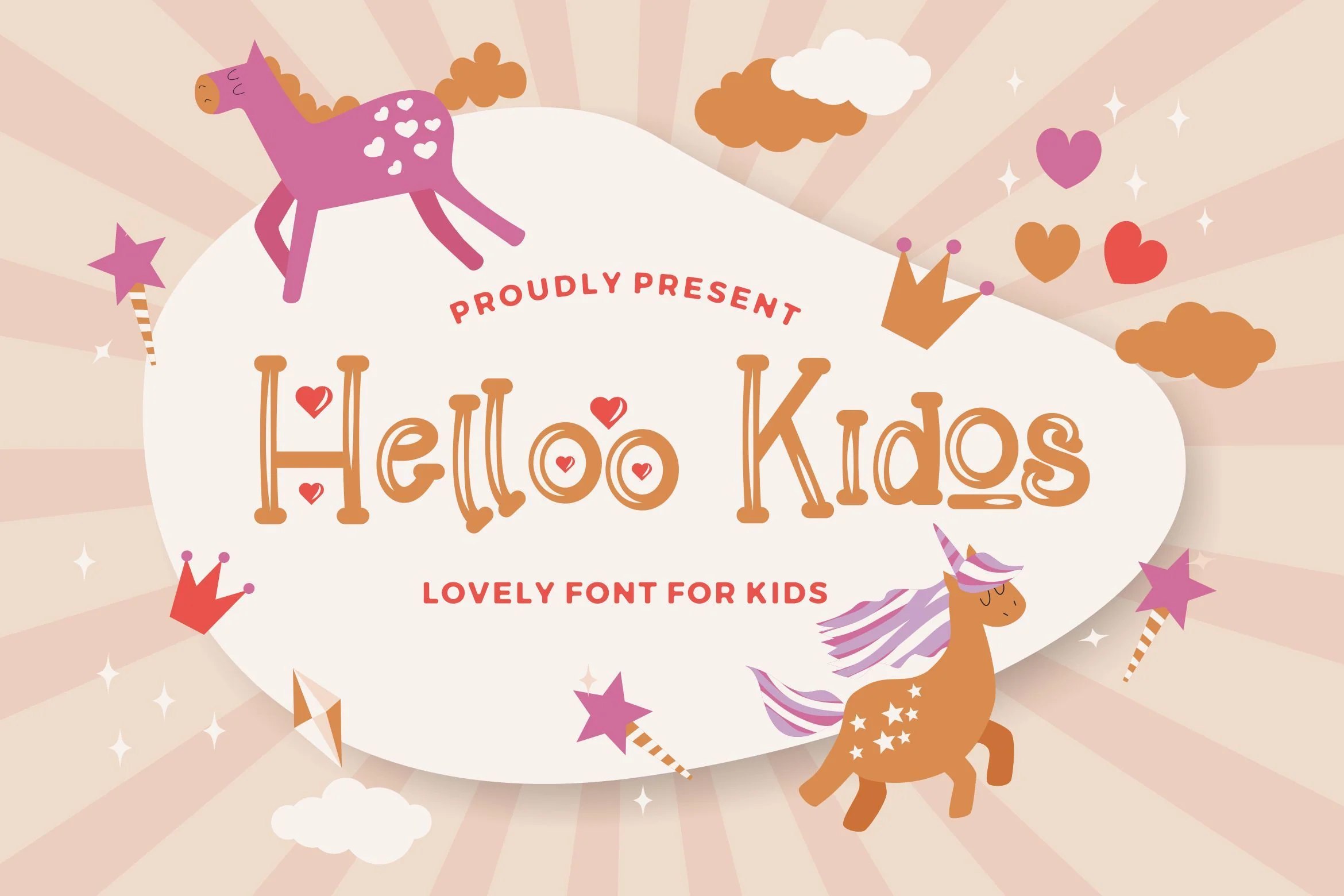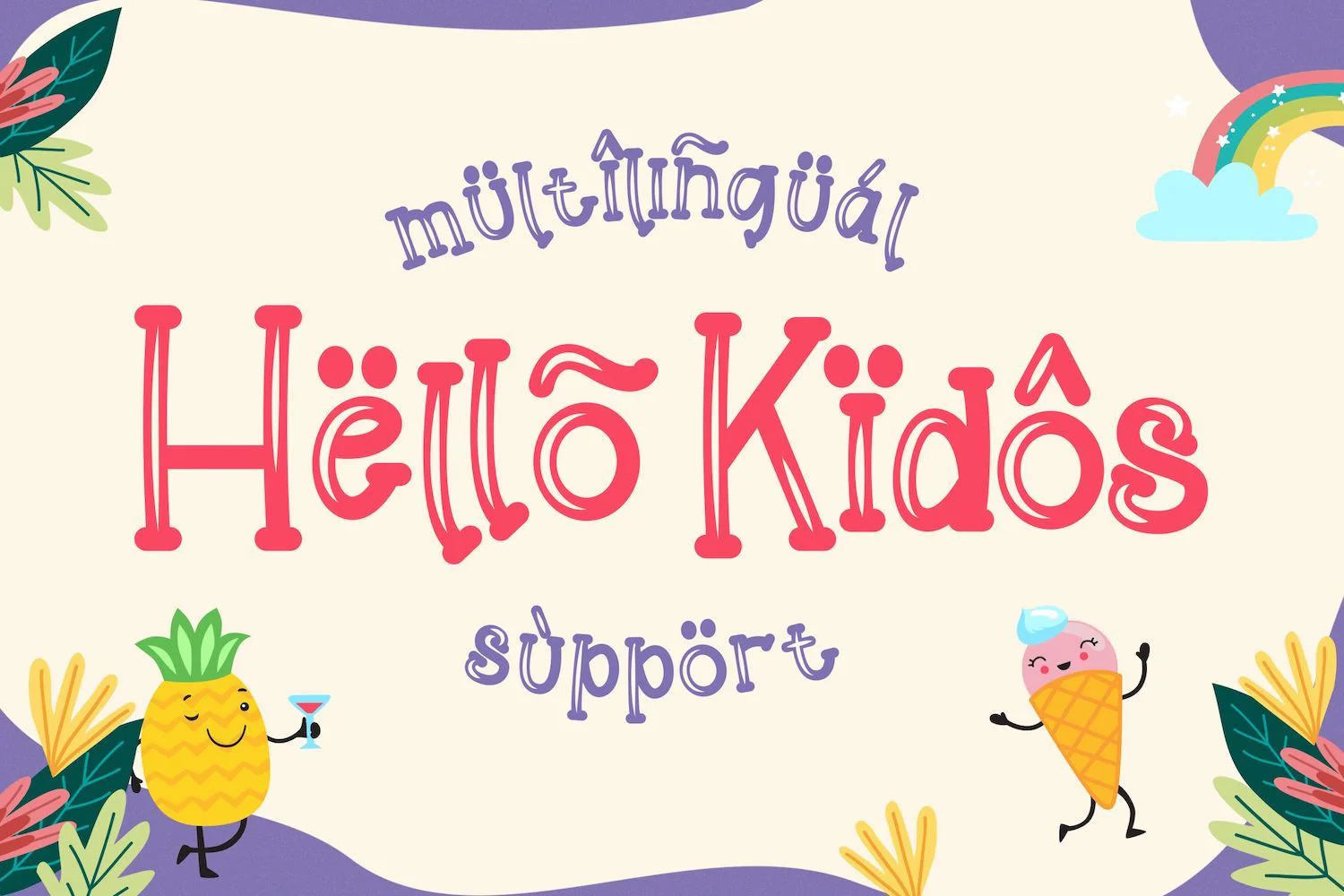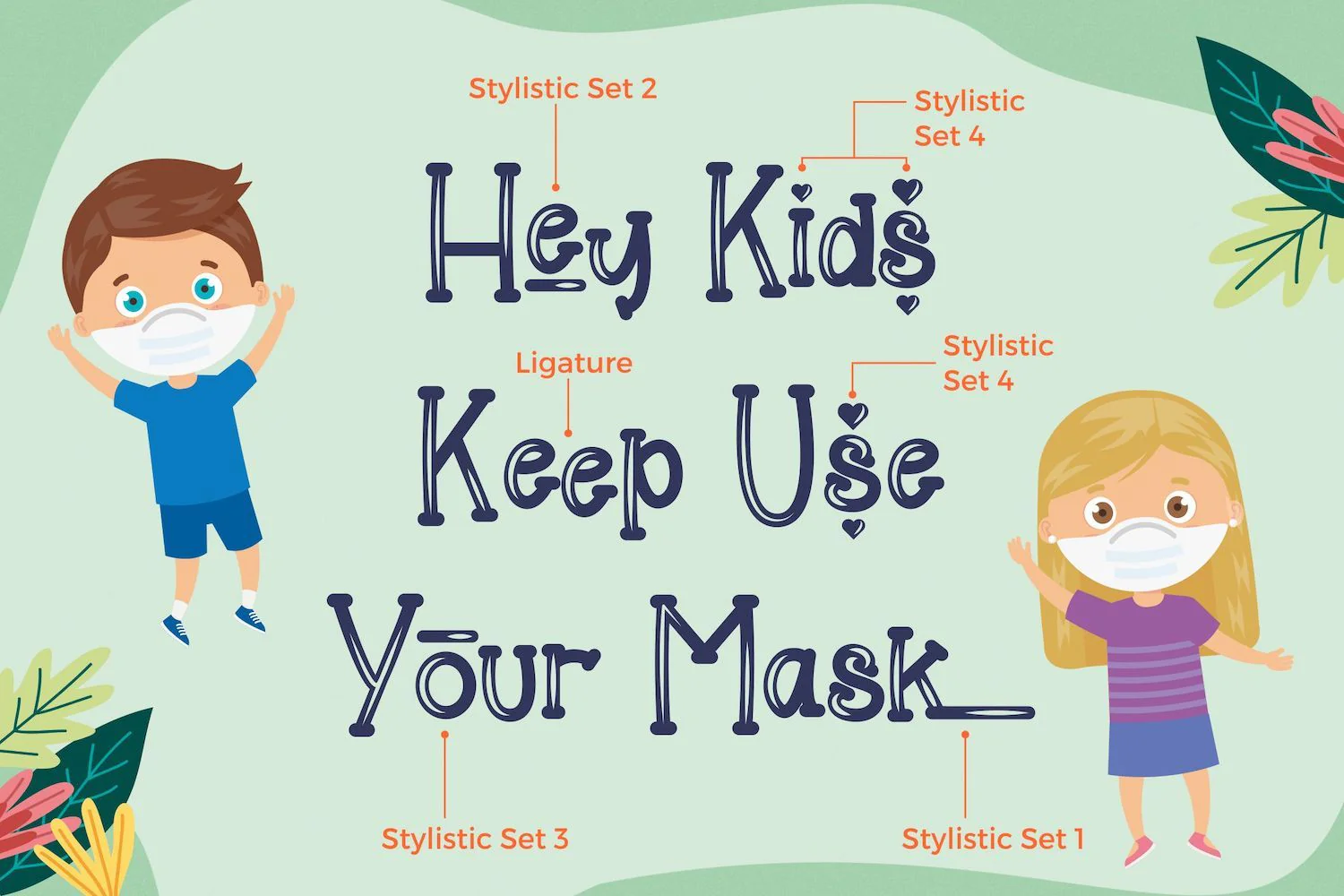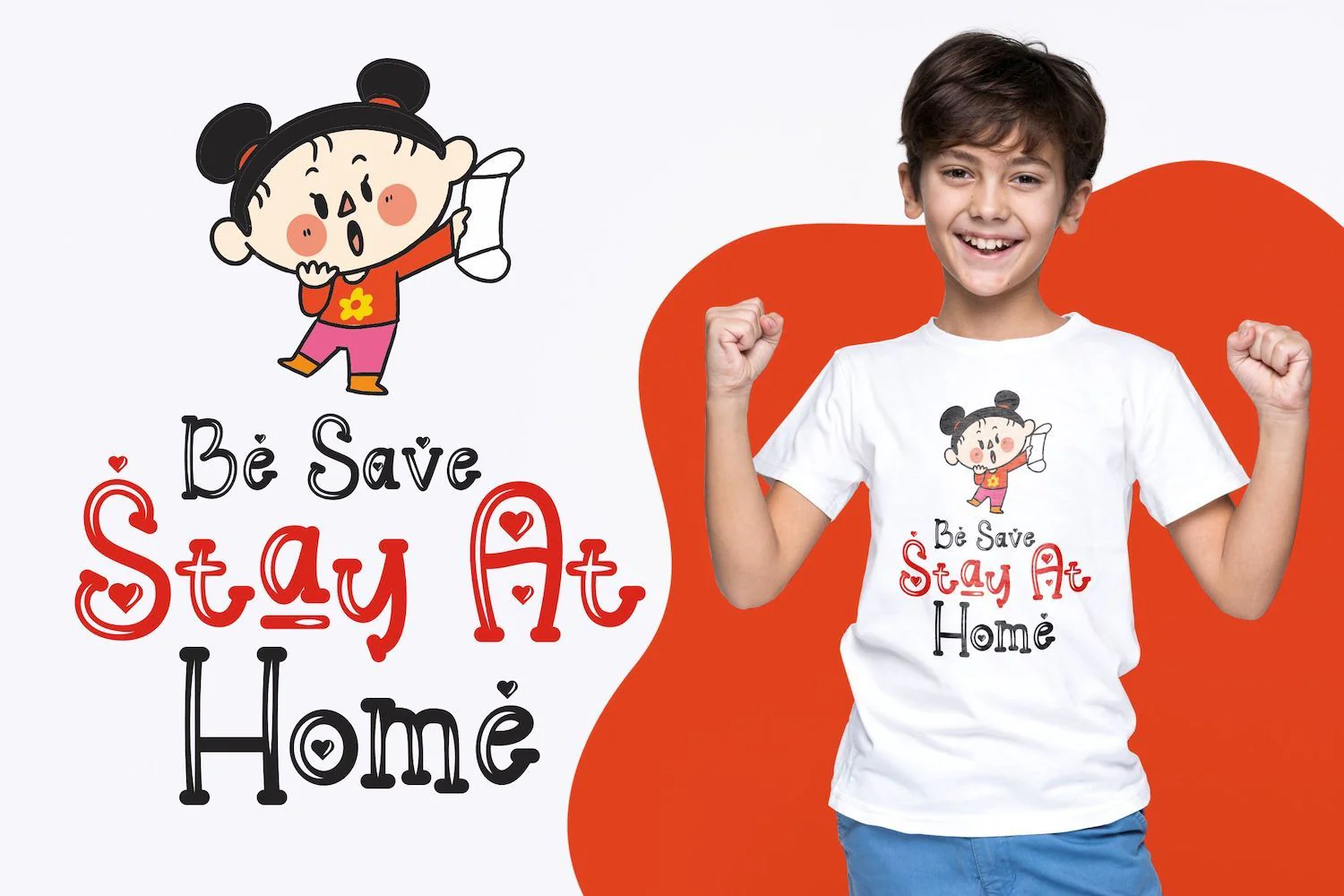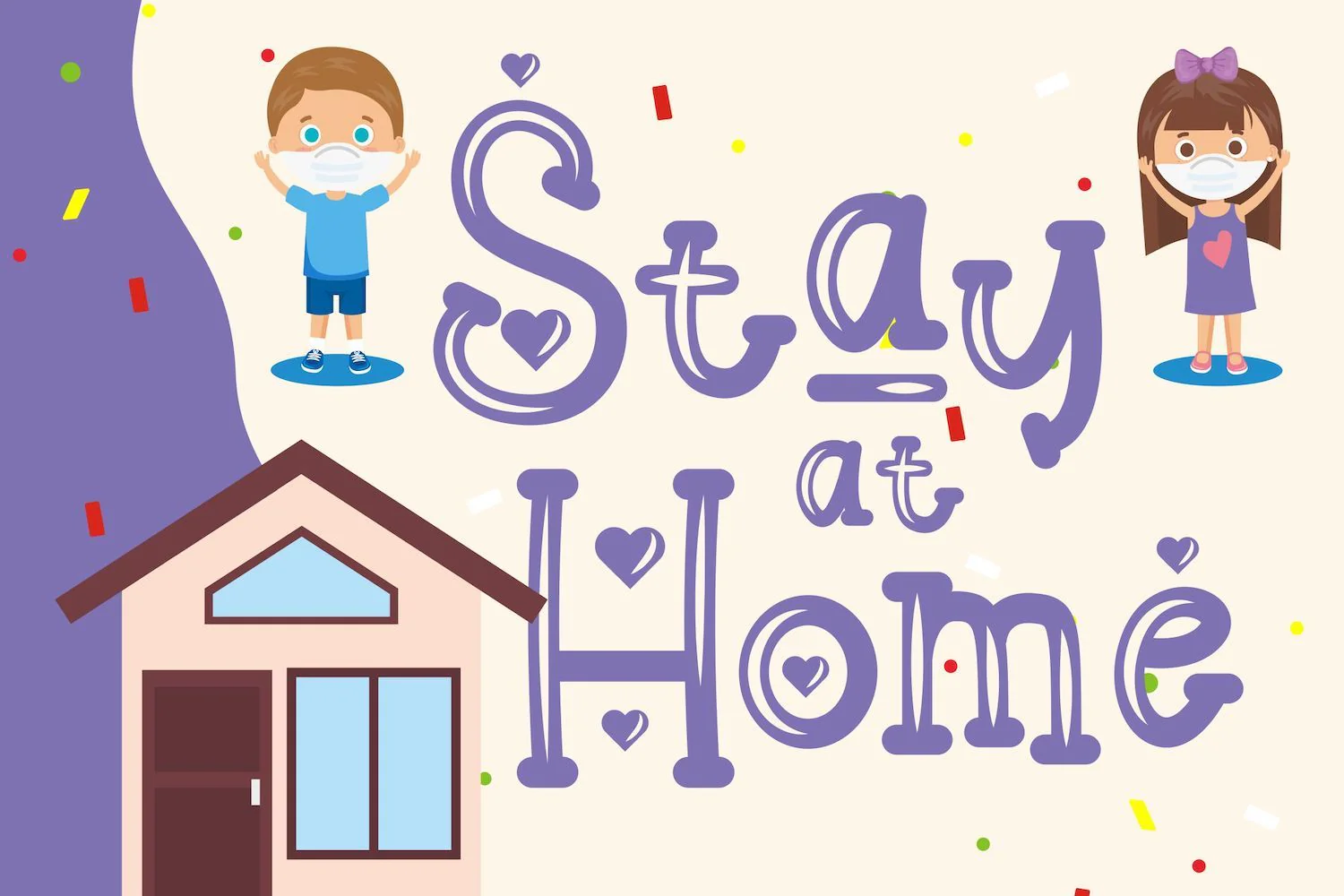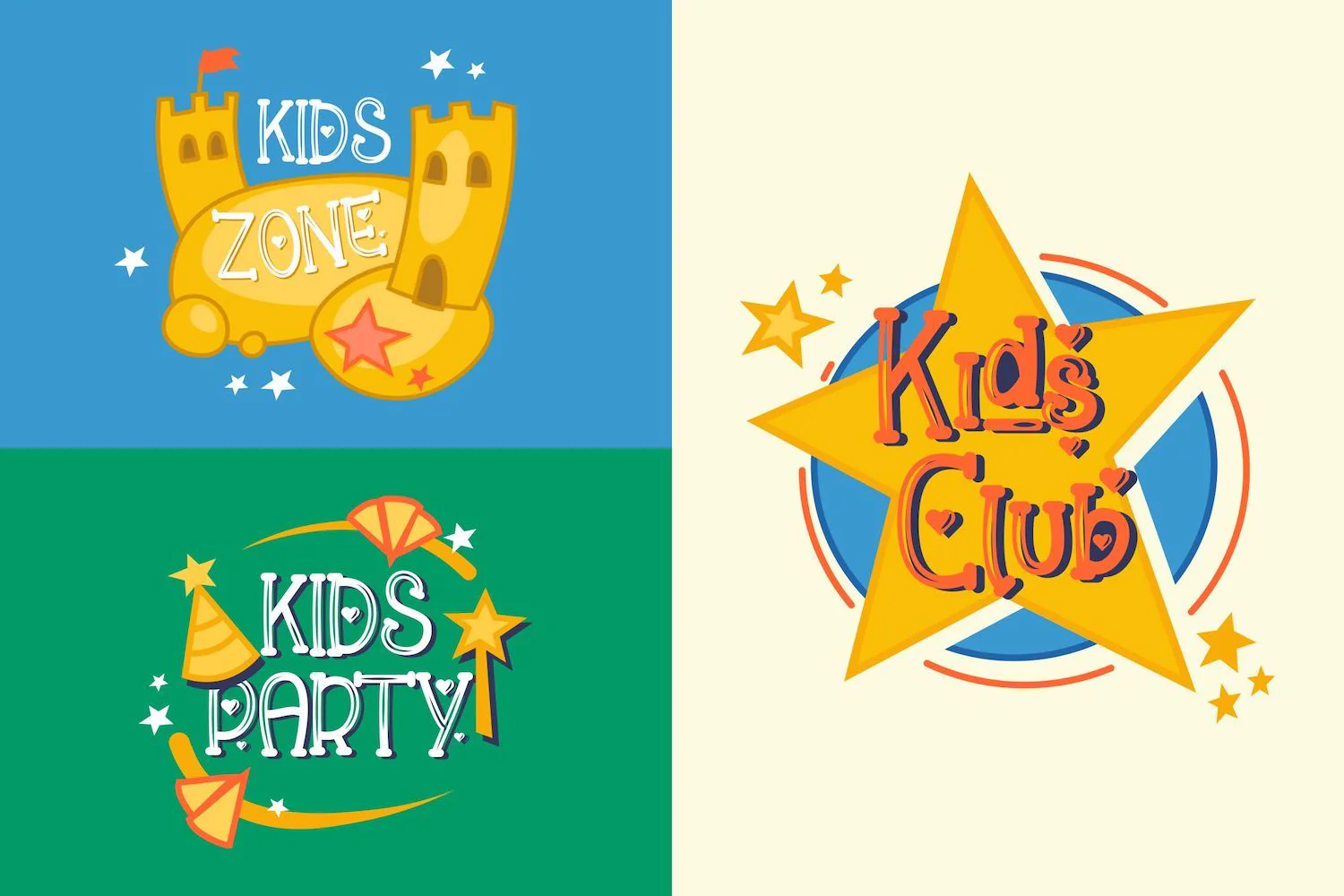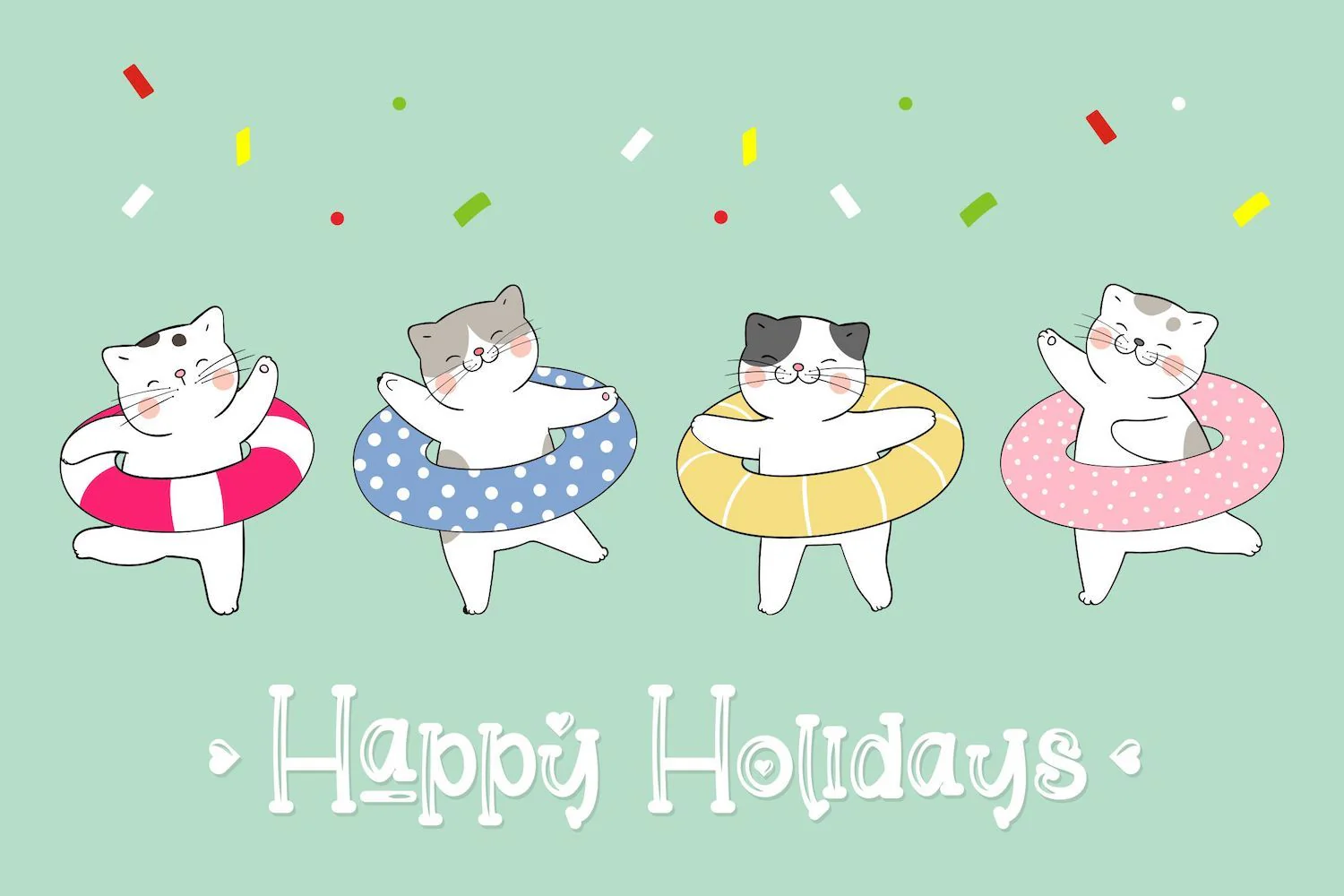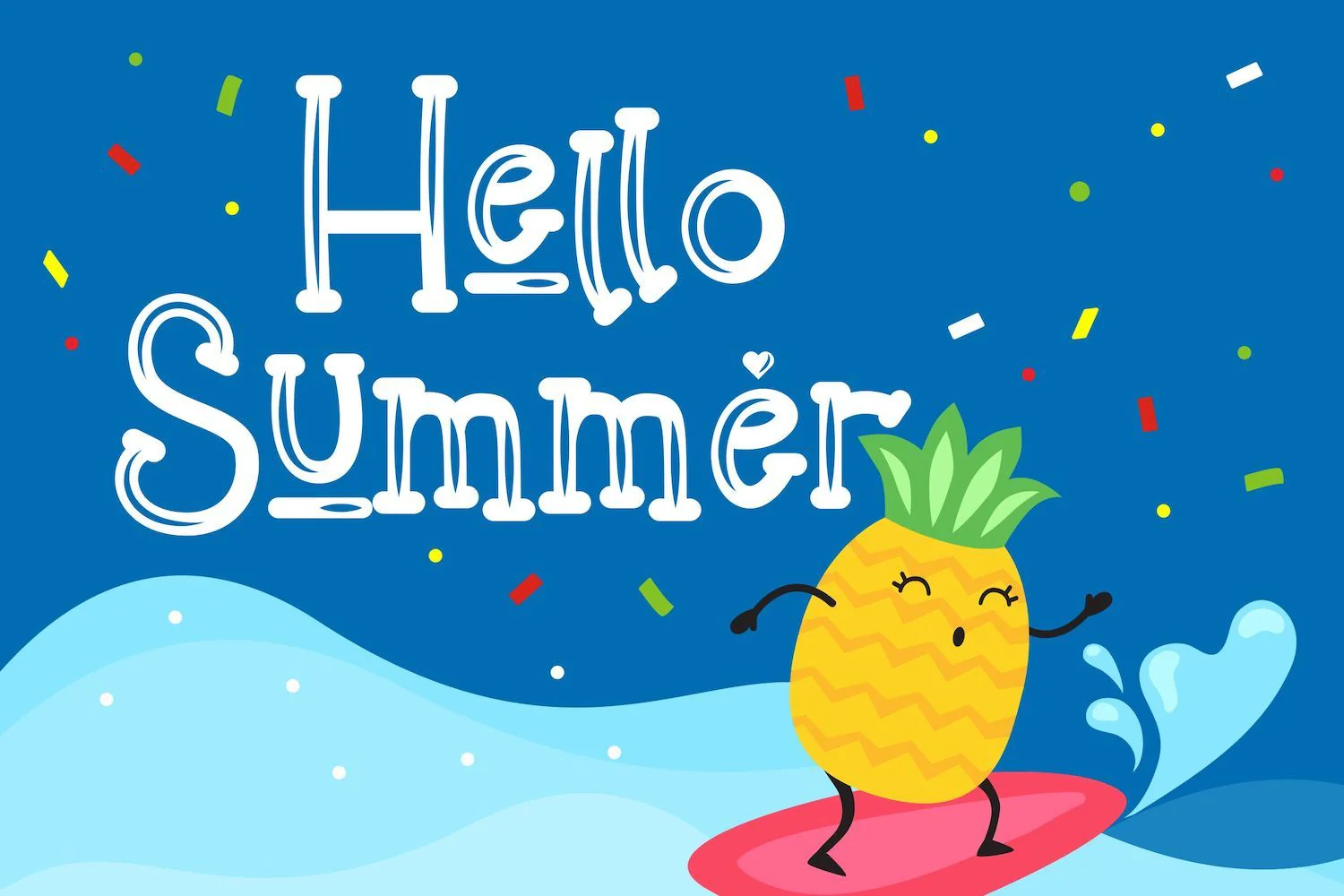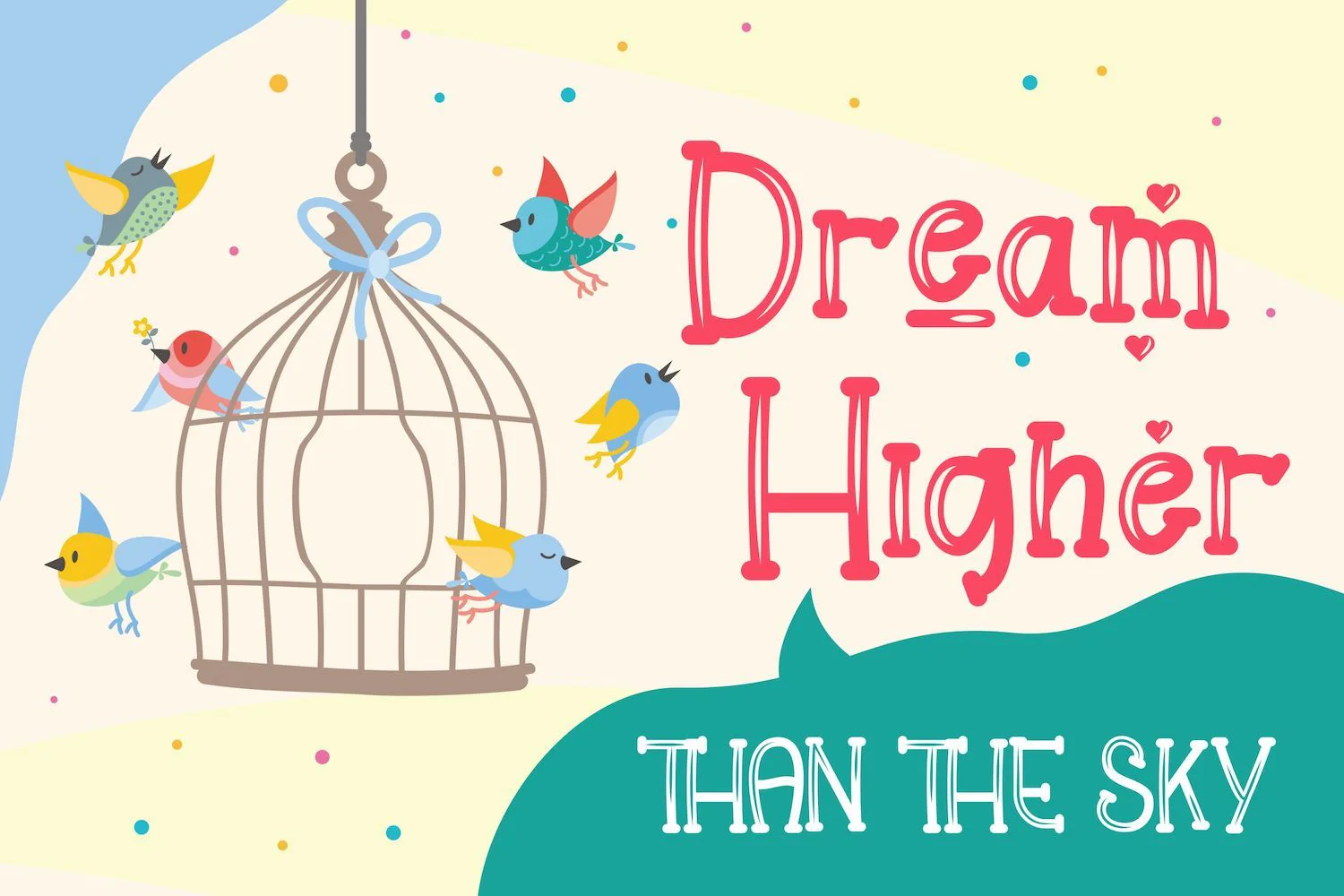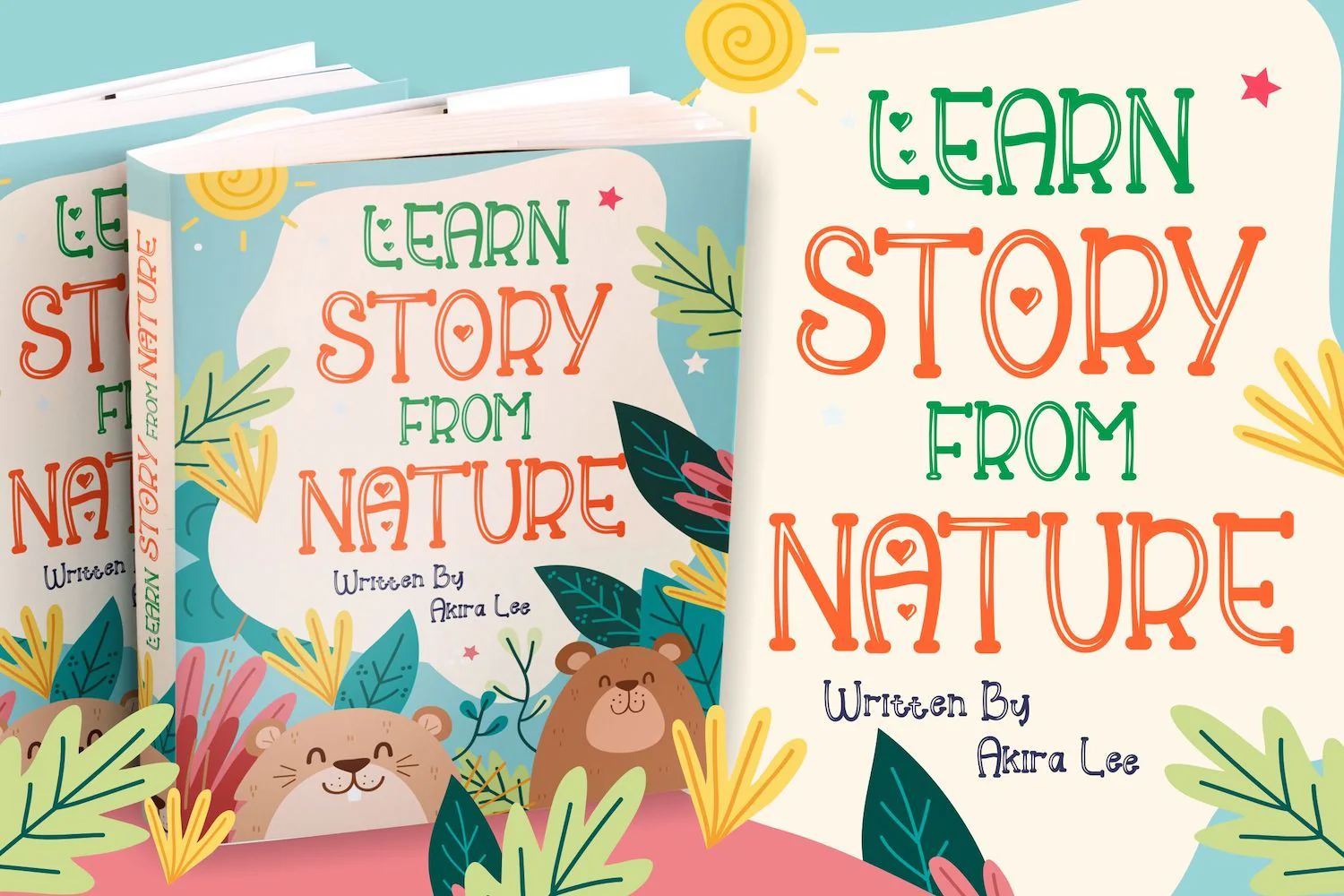
Helloo Kidos - Playful Display Font
Introducing Helloo Kidos - Playful Display Font
Helloo Kidos is a cute and quirky display font. It will add a joyful vibe to your creations. Employ this beautiful font to each of your ideas and notice how it makes them stand out!
Introducing Helloo Kidos - Playful Display Font
Helloo Kidos is a cute and quirky display font. It will add a joyful vibe to your creations. Employ this beautiful font to each of your ideas and notice how it makes them stand out!